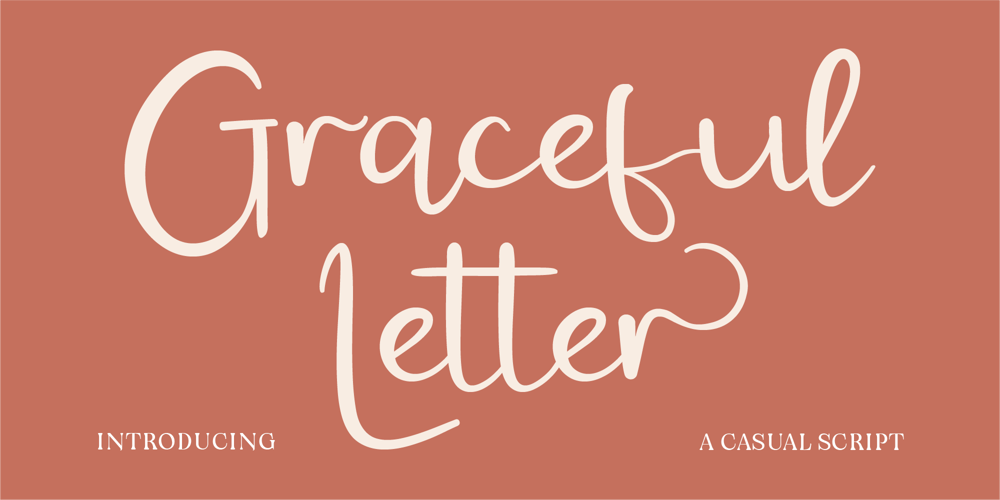
CF Graceful Letter
CF Graceful Letter font
CF Graceful Letter Font Family was designed by Gilang Mei Nugraha, Frederik Aristaputra and published by Creatifont Studio. CF Graceful Letter contains 2 styles and family package options. Galine Amours is a modern handwritten font with a touch of romance and sophistication. Its elegant curves and smooth strokes create an enchanting aesthetic that is perfect for wedding invitations, love notes, branding, and more. This font combines the natural beauty of handwriting with a refined modern style, adding charm and warmth to your designs. Whether you’re crafting heartfelt messages or creating timeless designs, Galine Amours is your go-to choice for a classy, handwritten look.A SUMMARY OF WHAT’S INCLUDED:- Standard Character A-Z, a-z, 0-9, Punctuation & symbols- Regular & Italic Style- Multilingual Support- Include Alternates and Ligatures- Works on PC & Mac- Simple installation- Accessible in Adobe Creative Suite (Ai, Ps, Id, etc.) even work on Microsoft Word.- PUA Encoded Characters – Fully accessible without additional design software.————🌟If you come across any issues or notice anything we might have overlooked while using this product, please feel free to reach out to us. We greatly value your feedback as it helps us enhance and refine our products. Thank you!